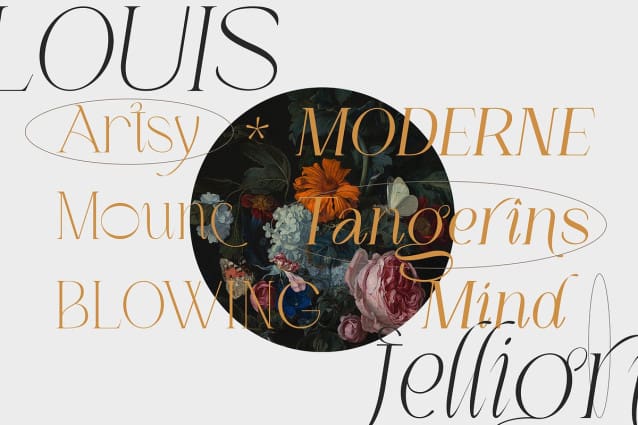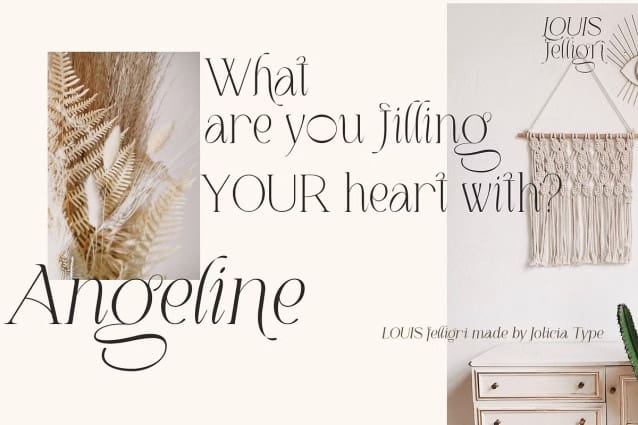
Louis Feligri Font
Louis Feligri Font is a modern display serif. This font is a variable typeface for weight By using the variable sliders in your design software you have a range of weight options in compatible software like Adobe Illustrator. Play around with individual letters to give your type a unique look. Included in this family are alternate characters to add even more styling options.